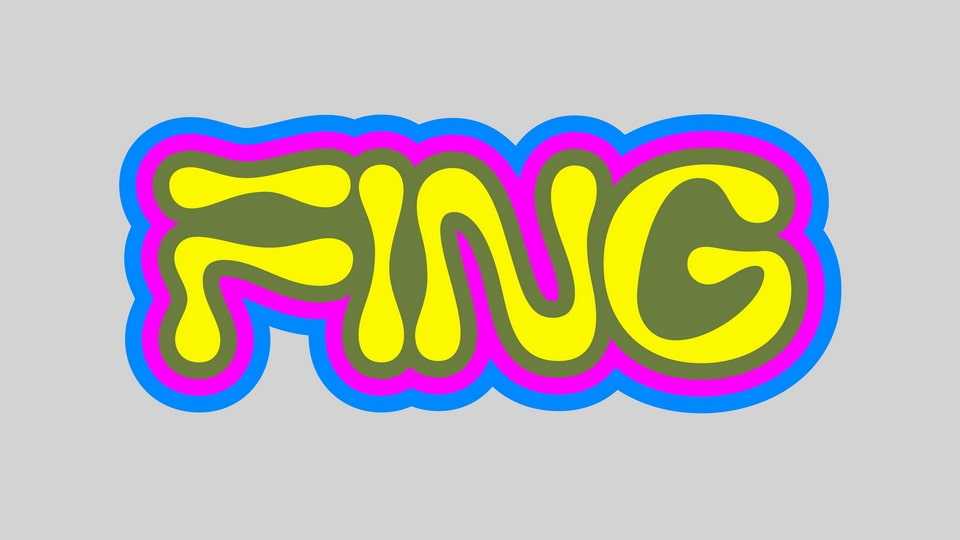
Download FING font, a funky all-caps display typeface designed to look bouncy and dynamic. FING is a perfect choice for projects that demand a touch of rhythmic movement and visual excitement.